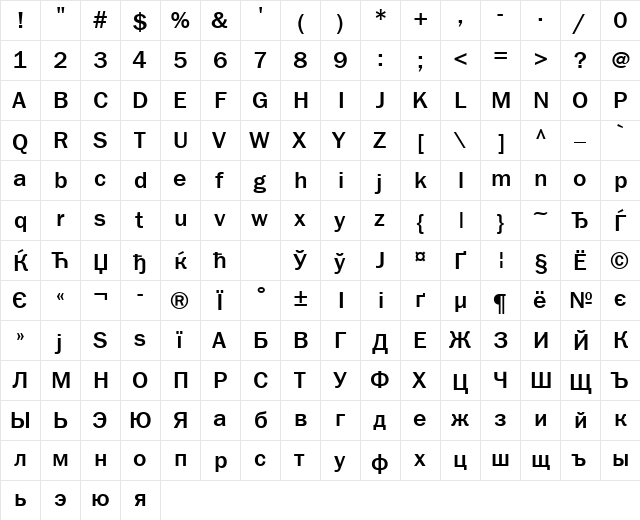
FranklinGothMediumCTT Regular
Design Context for FranklinGothMediumCTT Typeface
FranklinGothMediumCTT is a composed and adaptable typeface that performs quietly and consistently across a wide range of design contexts.